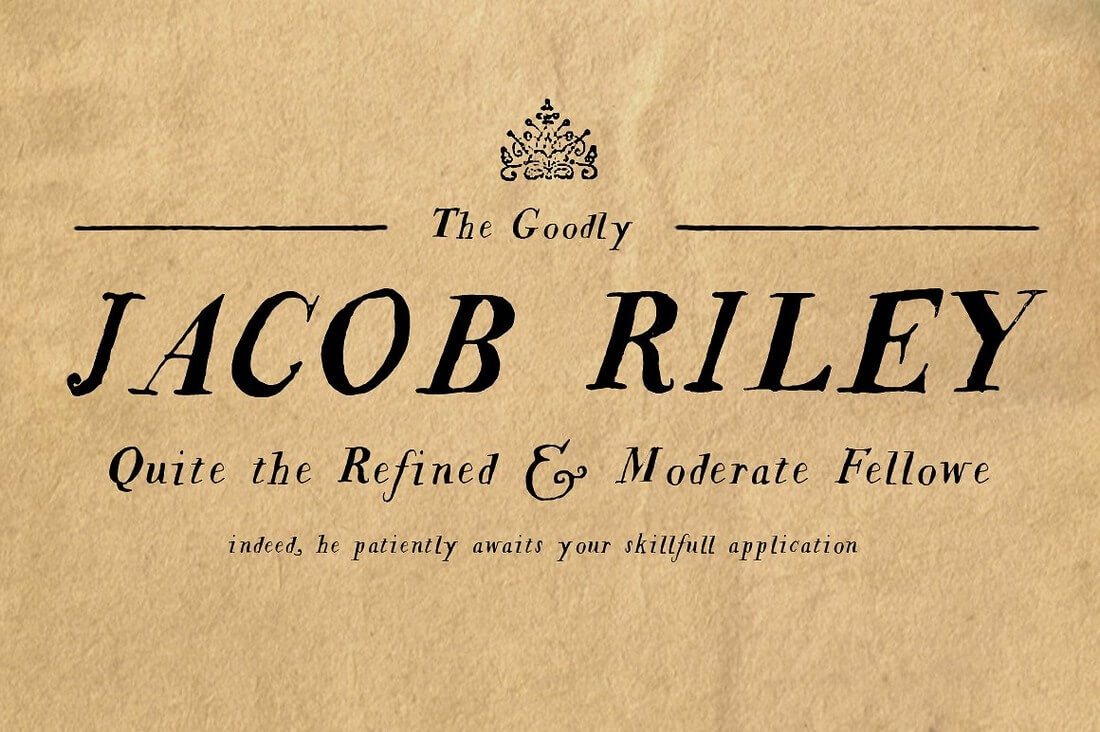
18Th Century Font Microsoft Word
18Th Century Font Microsoft Word. January 1, 2022 january 21,. There is the long ç that occurs in the middle of words, plus there are ligatures, which.
24 of the best classic fonts from the 1800s the 18th century was a time of great change. Depending on the font, these special characters may appear in different places. Especially in the united states, it was an era that spurred huge progress particularly in the intellectual and industrial arenas.
Irish Type Is Also Sometimes Called Gaelic.
Typical of 19th century serif fonts, de vinne ’s slender stems give it a distinctly victorian look that would make a great body text choice for posters. Classics (baskerville, futura, garamond) alongside hot new fonts (brice, moneta,novera). Best irish font microsoft word.
There Is The Long Ç That Occurs In The Middle Of Words, Plus There Are Ligatures, Which.
Coffee tin (similar to the rosewood font) inspired by fonts like rosewood and ponderosa, which are modeled after the display fonts of the late 18th century, coffee tin. We have 15 free 1700s fonts to offer for direct downloading · 1001 fonts is your favorite site for free fonts since 2001 Classics (baskerville, futura, garamond) alongside hot new fonts (brice, moneta,novera).
This Face Is Based On One Developed By The Renowned 18Th Century Typographer John Baskerville.
18th century font microsoft word. Irish type is also sometimes called gaelic script because it’s a part of insular scripts, which were created for. Generally, whatever 18th century font you use will have the following 12 ligature characters.
24 Of The Best Classic Fonts From The 1800S The 18Th Century Was A Time Of Great Change.